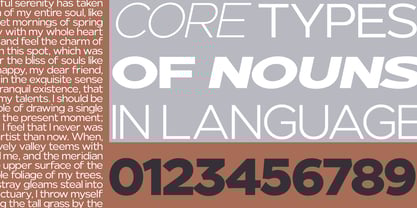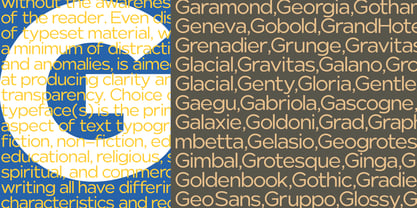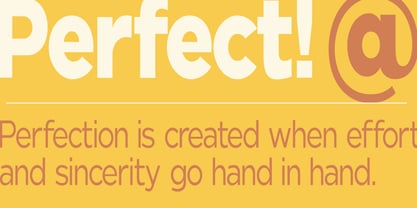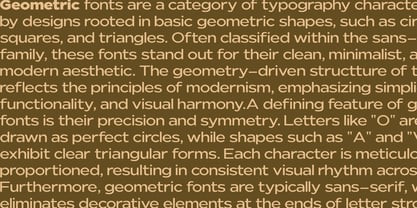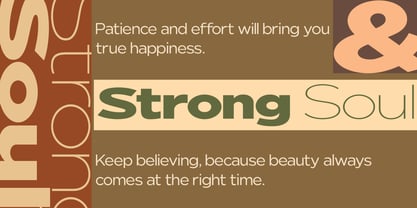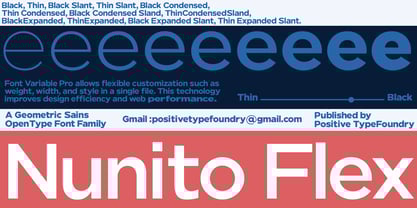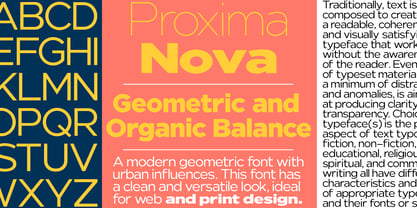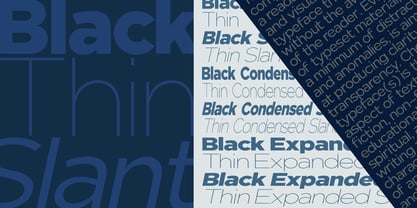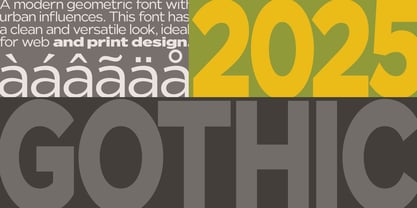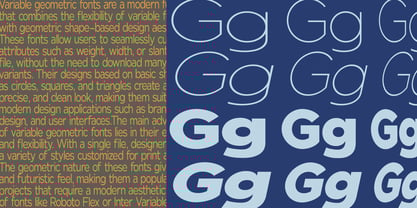
Nunito Flex
by Positive Type
The Nunito Flex Font Family was designed by Nur Hayati and published by Positive Type. Nunito Flex contains 54 styles and family package options. More about this family
Nunito Flex Pro is a new take on a classic look—it’s the result of a project whose goal was to take a beautifully designed sans and update it so that its technical standards surpassed the status quo, leaving us with a truly superior sans family.
This family isn’t just an update, it’s actually an expansion of the original concept that takes Nunito Flex’s design to the next level. In addition to the standard styles that range from Thin to Black, this collection of 54 fonts offers a compact look that rivals other sans on the market for readability on and off-screen at any size, alongside a heavy weight that would be a great look on its own and has the ability to pair well with so many contemporary serif body types. Overall, the design of this family is clean, straightforward, and works brilliantly for copy blocks and headlines.
Nunito Flex Variables are font files that feature two axes, bold and width. They have preset swatches ranging from Thin to Black and Solid Width to Roman.
Examples of presets are: Thin, Thin Condensed, Thin Expanded, Thin Slanted, Thin Italic, Thin Condensed Slanted, Thin Expanded Slanted, Extra Light, Extra Light Condensed, Extra Light Expanded, Extra Light Slanted, Extra Light Italic, Extra Light Condensed Slanted, Extra Light Expanded Slanted, Light, Light Condensed, Light Expanded, Light Slanted, Light Italic, Light Condensed Slanted, Light Expanded Slanted, Regular, Regular Italic, Condensed, Condensed Slanted, Expanded Slanted, Medium, Medium Condensed, Medium Expanded, Medium Slanted, Medium Italic, Medium Condensed Slanted, Medium Expanded Slanted, Semi Bold Condensed, Semi Bold Expanded, Semi Bold Slanted, Semi Bold Italic, Semi Bold Condensed Slanted, Semi Bold Expanded Slanted, Bold, Bold Condensed, Bold Expanded, Bold Slanted, Bold Italic, Bold Condensed Slanted, Bold Expanded Slanted, Black, Black Condensed, Black Expanded, Black Slanted, Black Italic, Black Condensed Slanted, Black Expanded Slanted.
Designers: Nur Hayati
Foundry: Positive Type
Nunito Flex